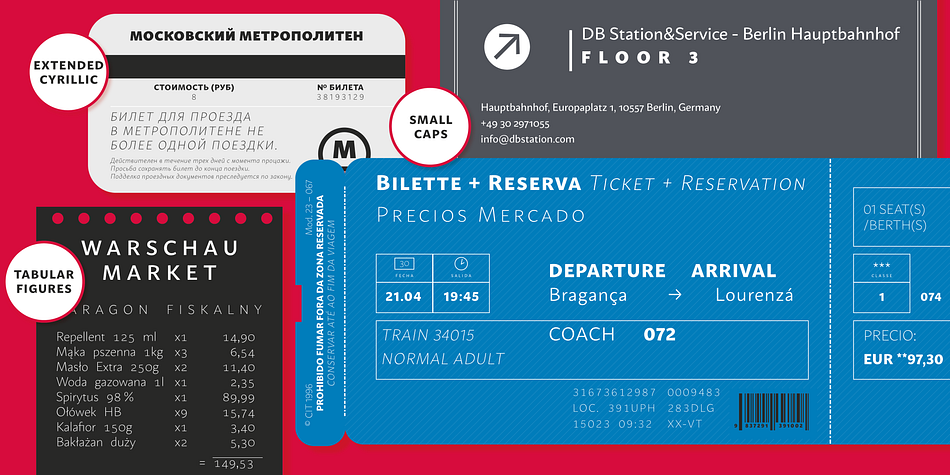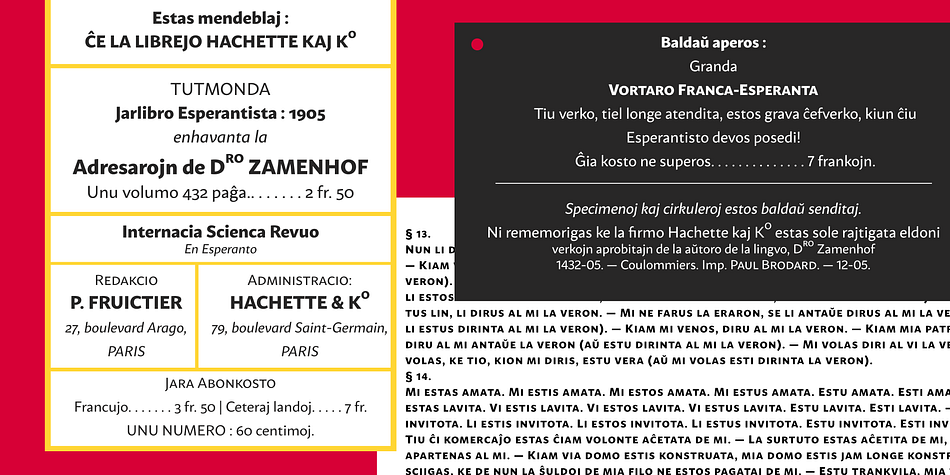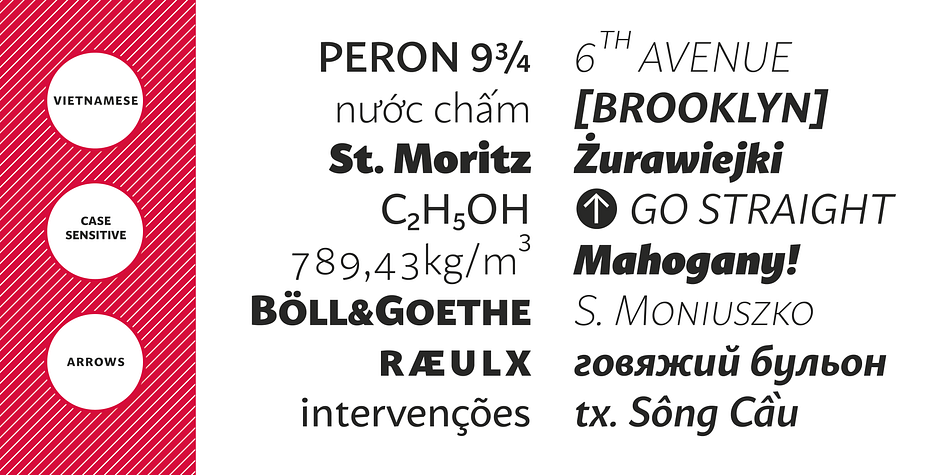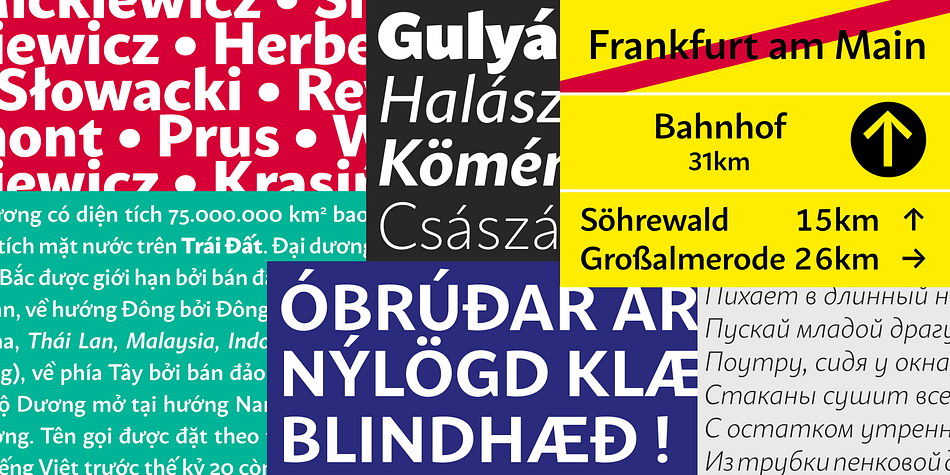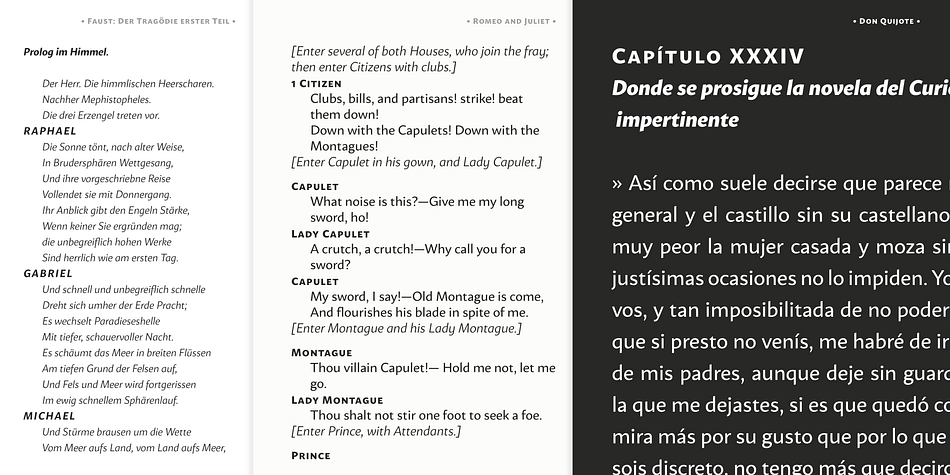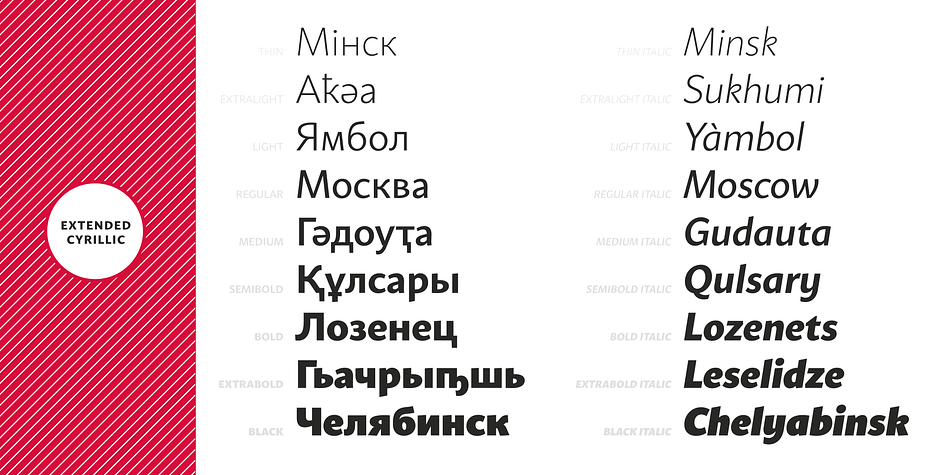
Designed by Maciej Włoczewski, Mato Sans is a sans serif font family. This typeface has eighteen styles and was published by Maciej Włoczewski.
Legible and dynamic shape, tons of OpenType options, different scripts – that’s Mato Sans. Difficult small size, long text in Vietnamese, huge heading in Russian or table full of figures to create? It’s not a problem with this family. There are over 2000 glyphs in every weight with such features: superscript and subscript characters, tabular lining and old style figures, small caps, fractions, arrows or even case sensitive parenthesis.
Mato Sans was designed for use in Latin as well as in Cyrillic script. Every font contains an extended set of Cyrillic characters including special, local glyphs for Bulgarian, Macedonian and Serbian.